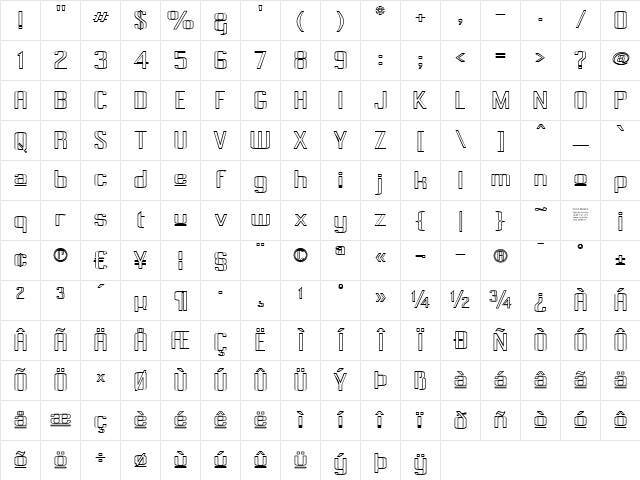
Pecot Upper Outline Regular
Complete Pecot Upper Outline Regular glyph index. Displaying only characters natively supported by Pecot Upper Outline Regular font.
Design Context for Pecot Upper Outline
Pecot Upper Outline is built around its visual character rather than neutral utility - its distinctive forms are designed to make an impression at display sizes.
Font Pairing: Pair with a clean neutral sans-serif for body copy to let Pecot Upper Outline's character lead without overwhelming the composition.
Pro Tip: Use Pecot Upper Outline exclusively at display sizes - it was designed to be seen, not read at length. Let a neutral companion handle body copy.